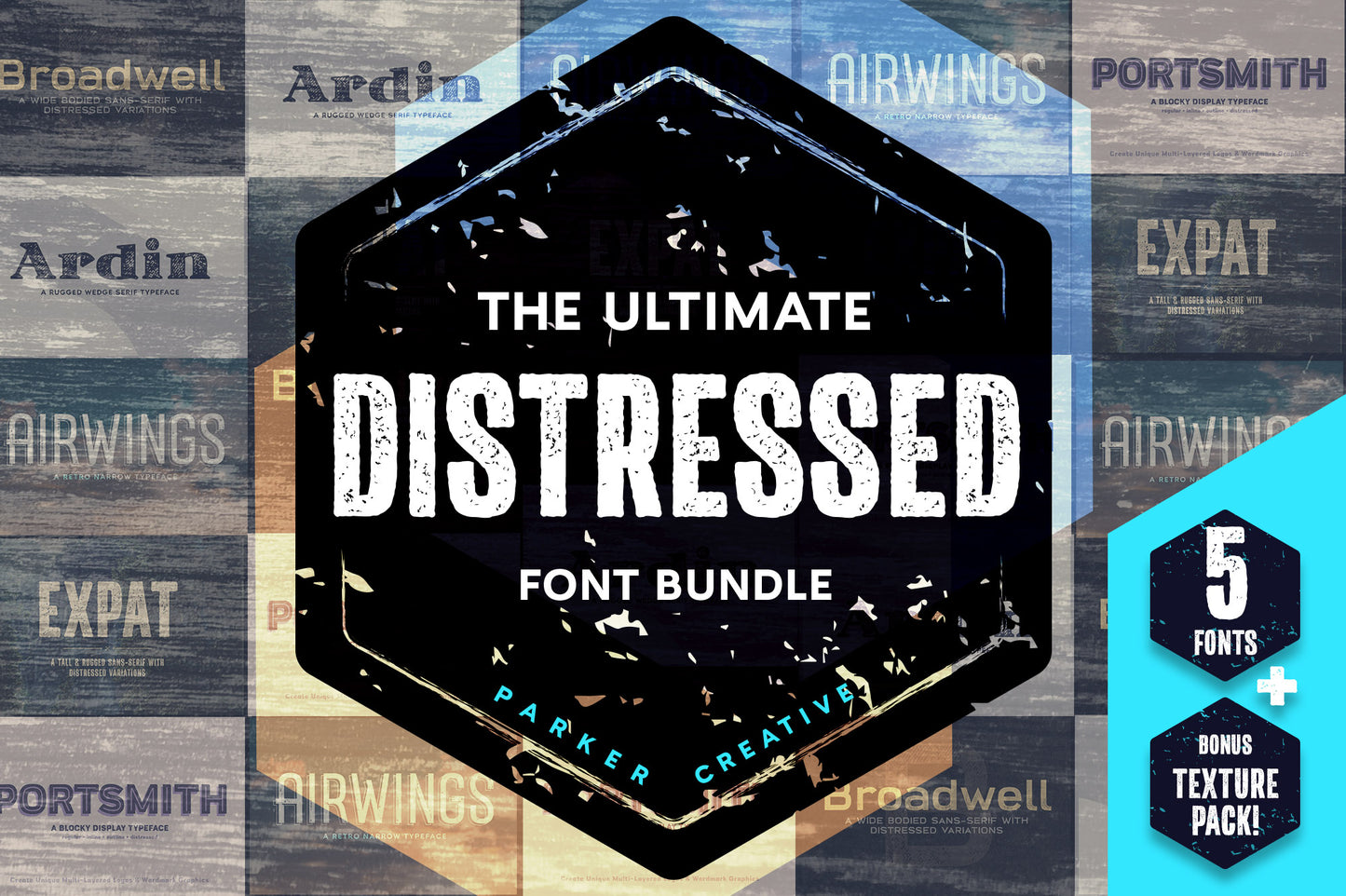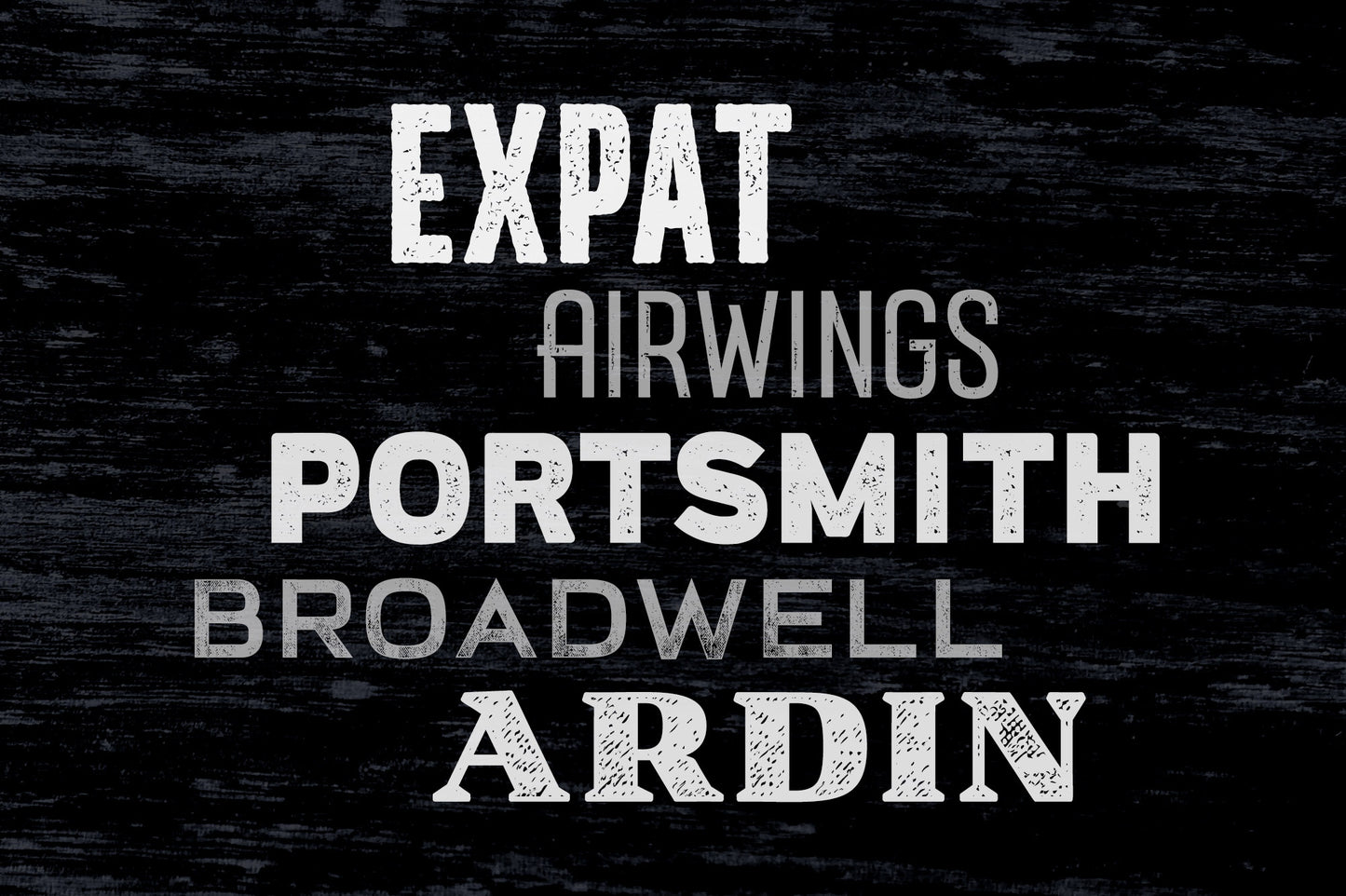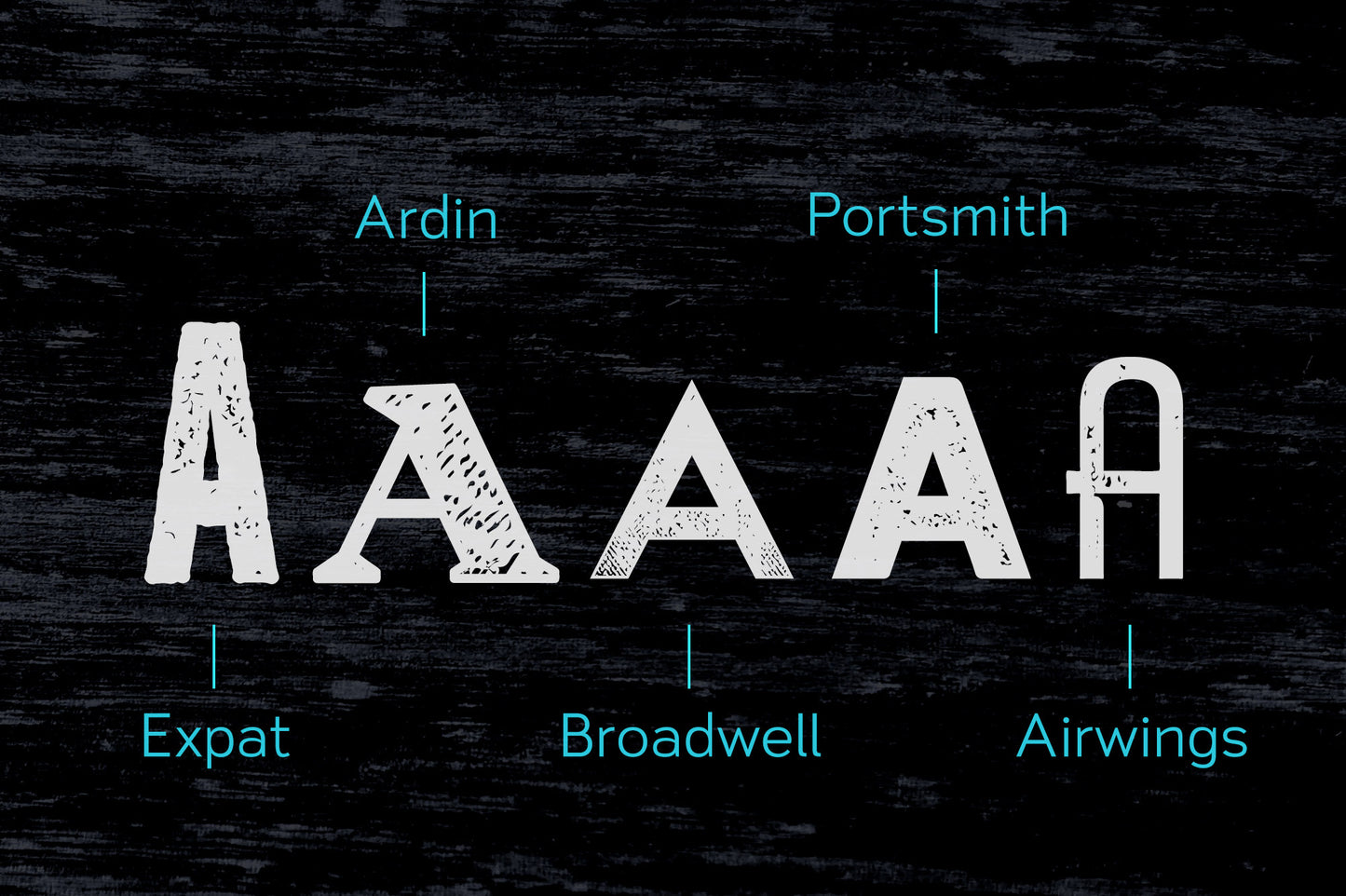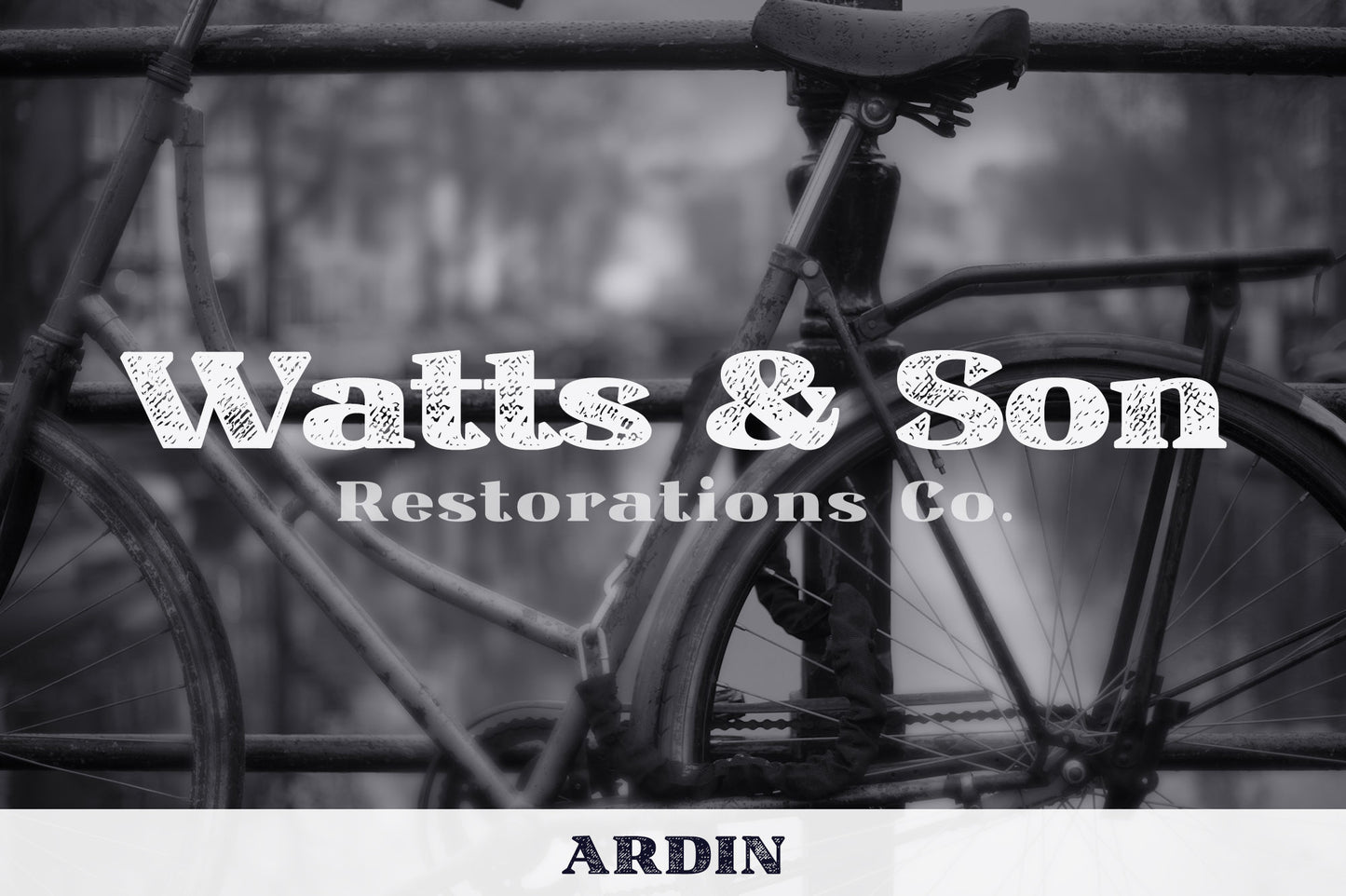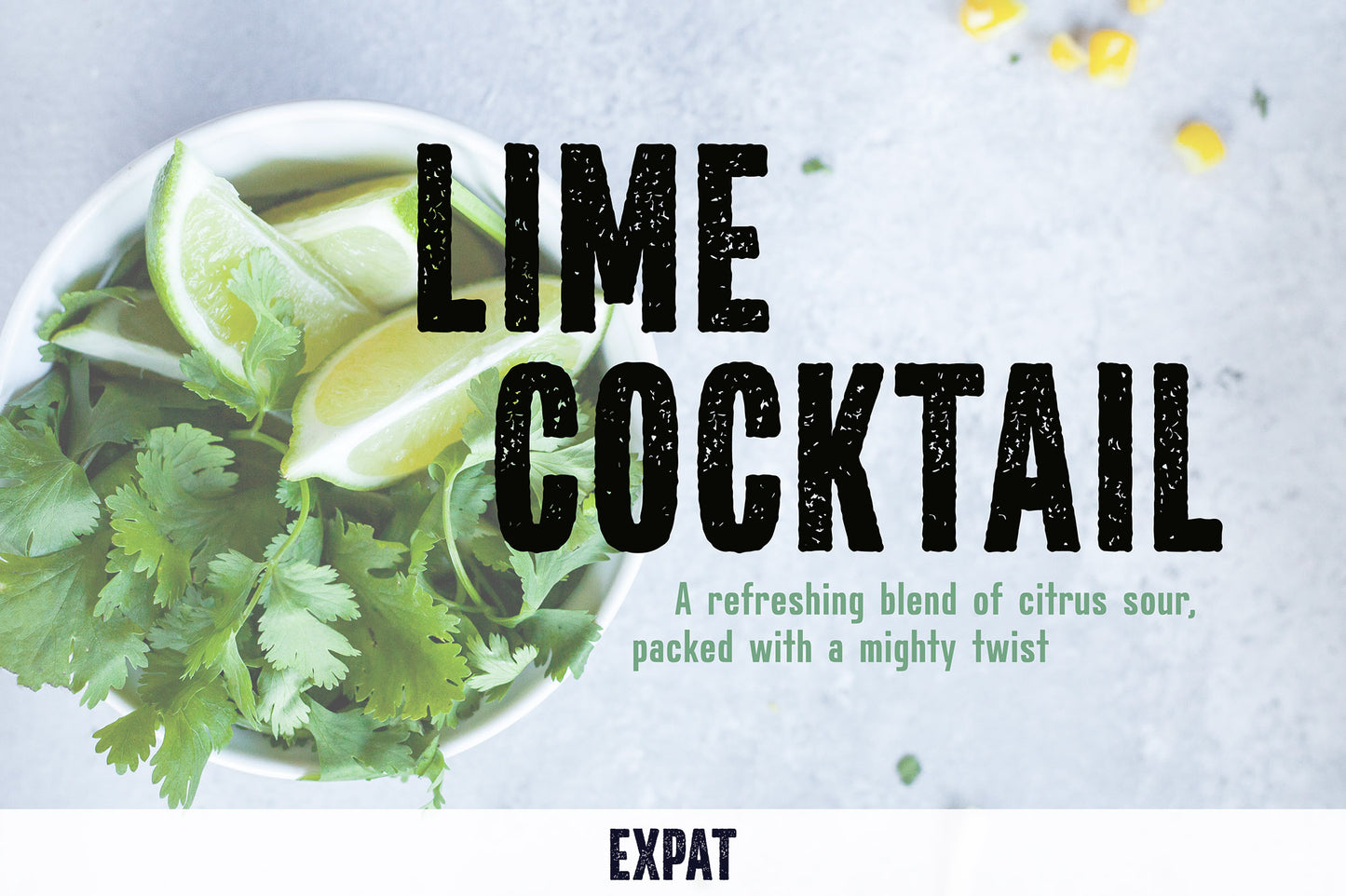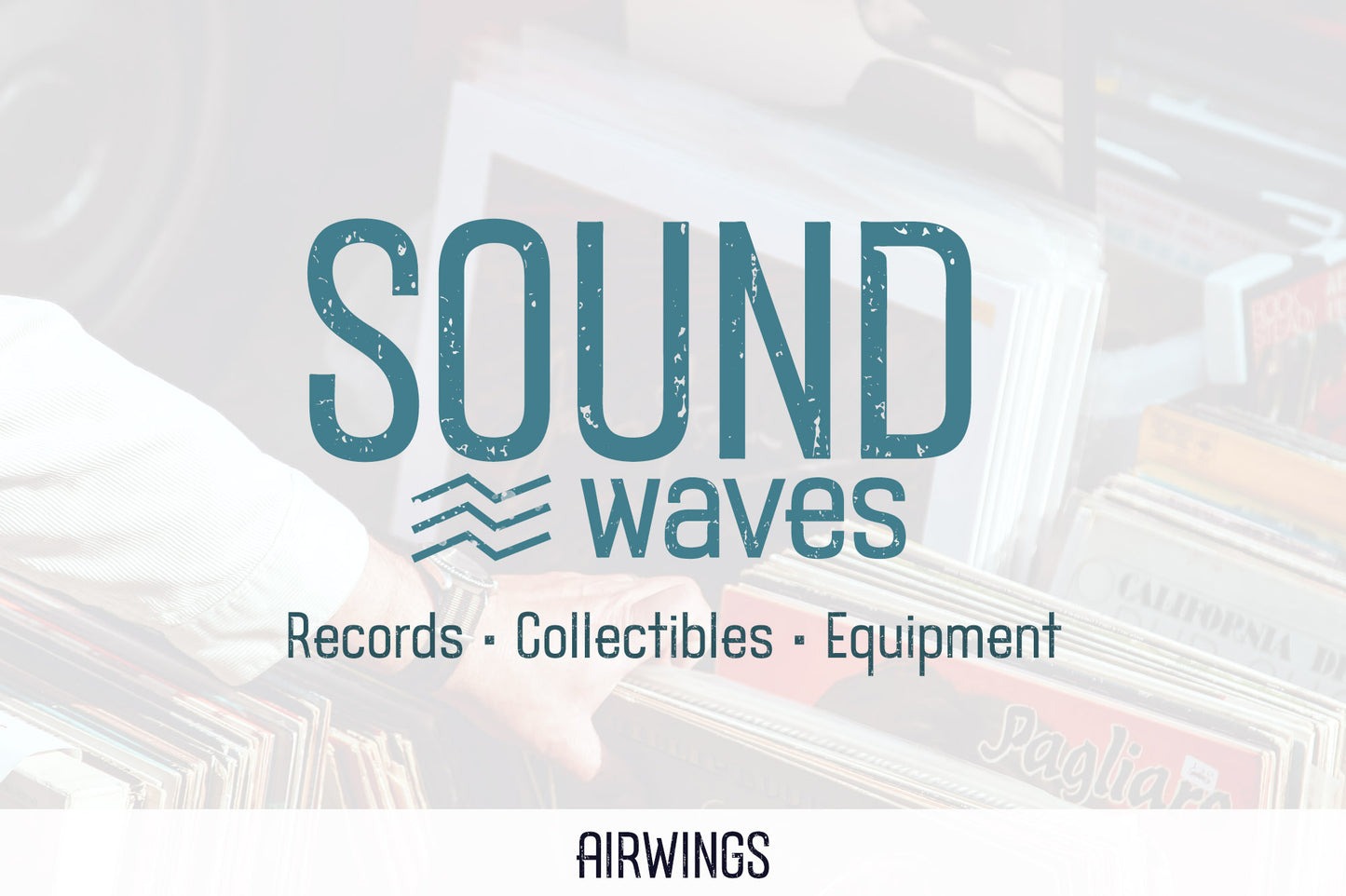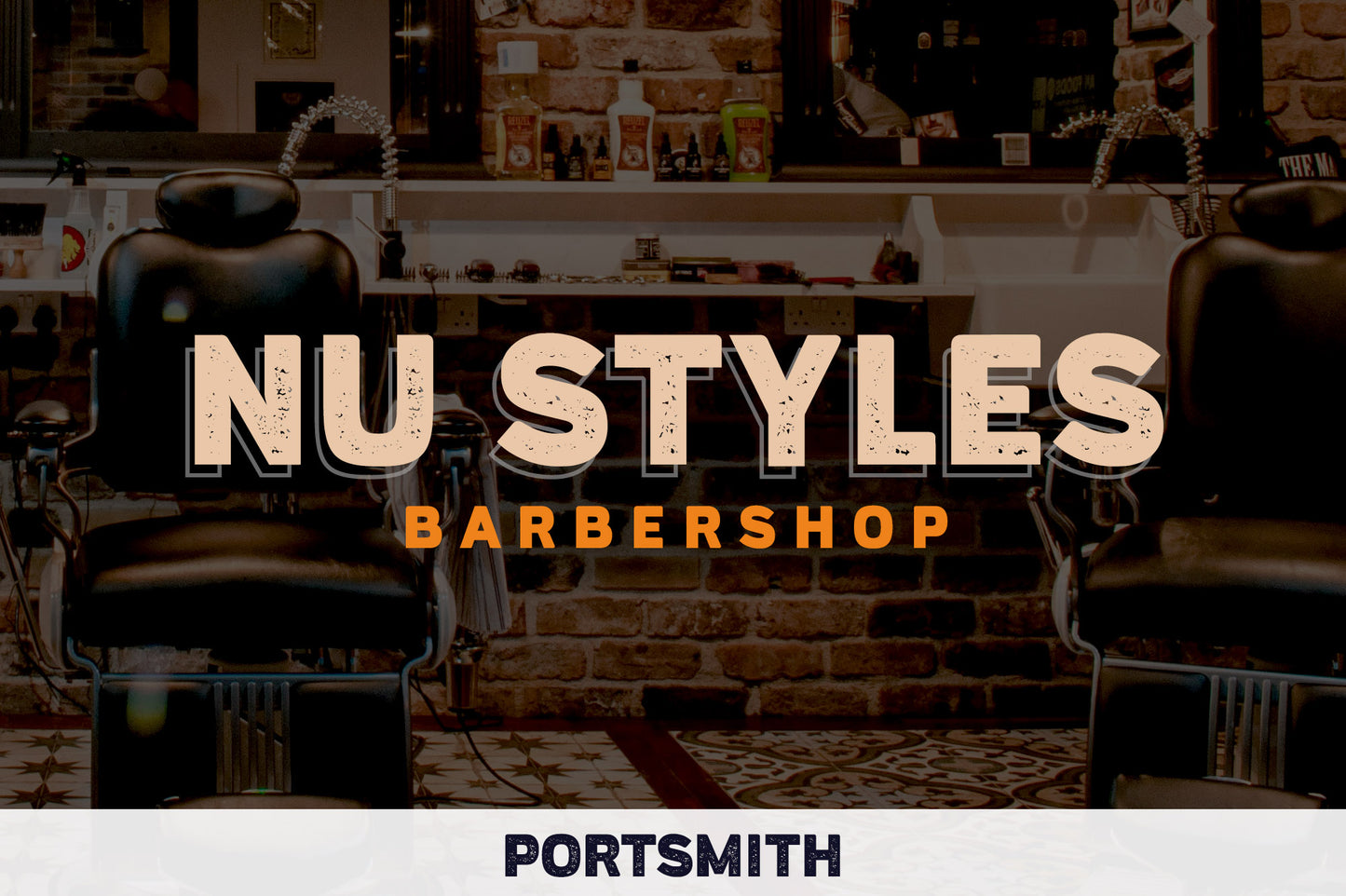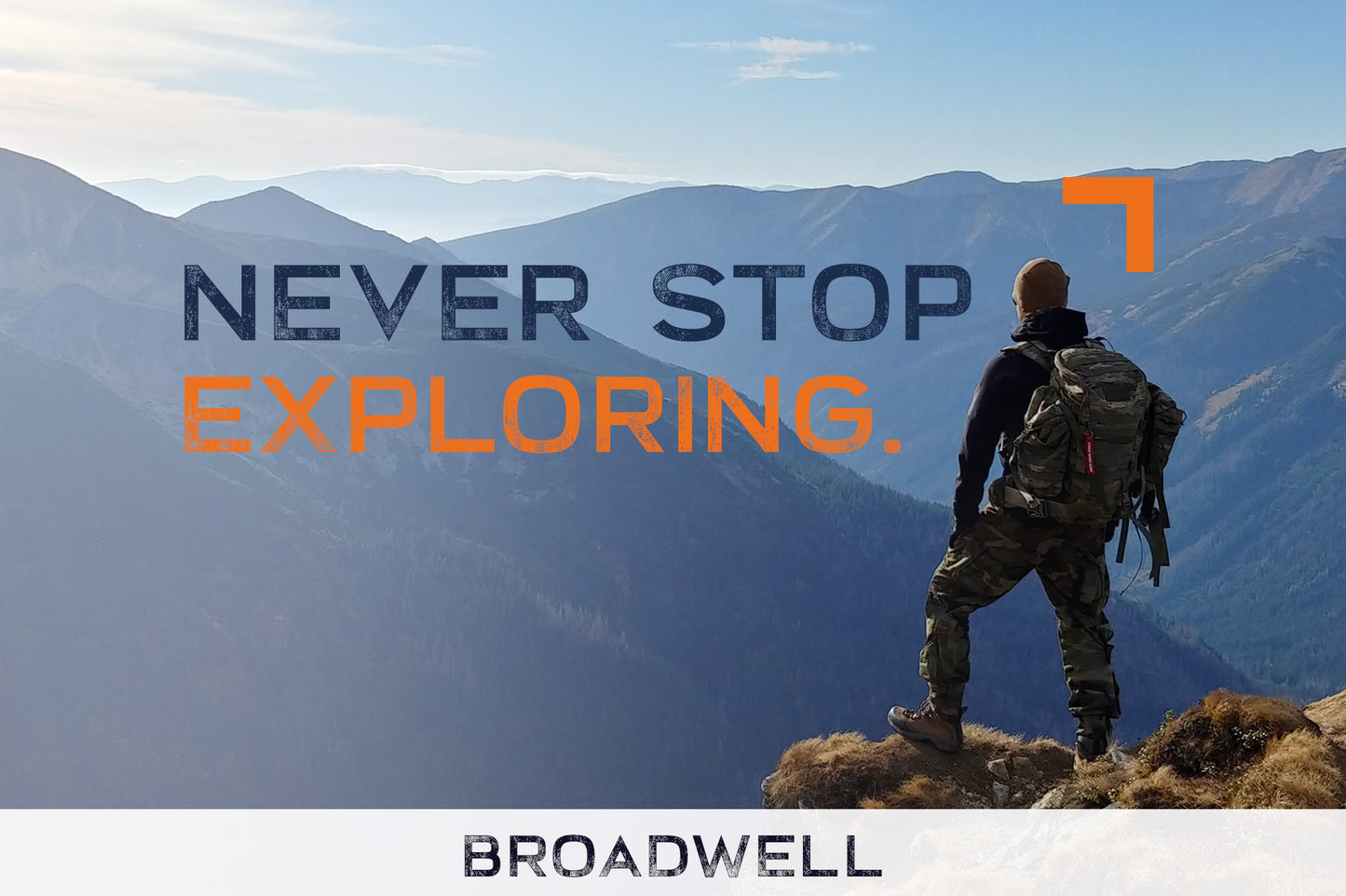
The Ultimate Distressed Font Bundle
Introducing the Ultimate Distressed & Textured Font Bundle from Parker Creative! Featuring 5 premium typefaces and a bonus distressed wood texture pack, this font bundle packs a punch for a wide variety of creative projects.
Get a grunge look with a thick rugged sans-serif like Broadwell, try Ardin or Airwings for a uniquely classic style, or use Expat or Portsmith for a versatile, modern design!